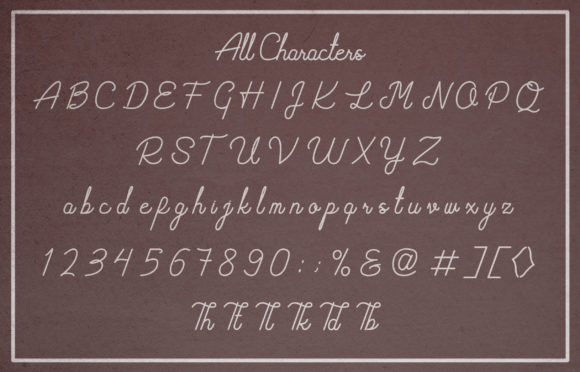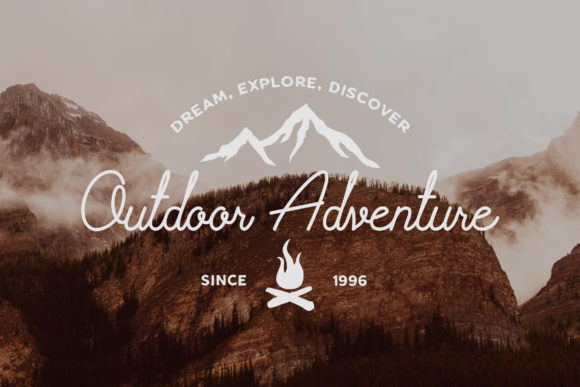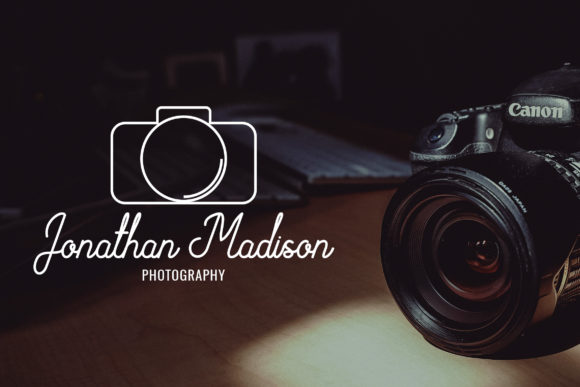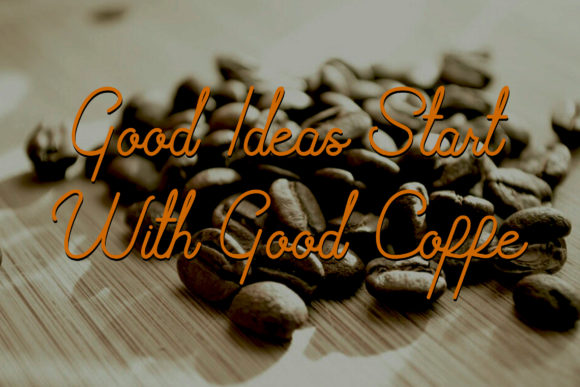
Rafflesian Poem Font
About Rafflesian Poem Font
The Rafflesian Poem is a vintage script typeface. It’s perfect for logos, advertising, apparel designs, labels, signage, and much more!